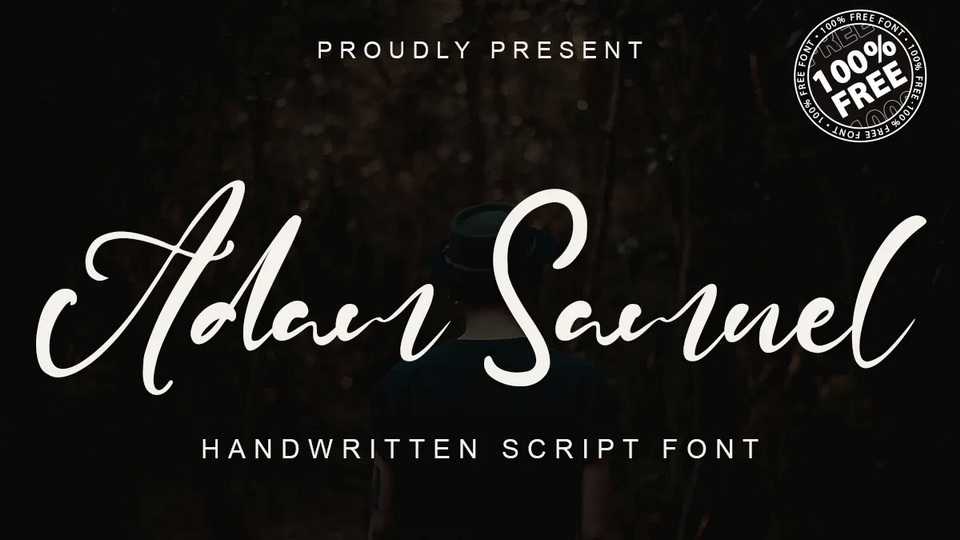
Download Adam Samuel font, a simple and natural typeface that has great handwriting, nice curves, and medium weight. Perfect for any product or merchandise, ads and social media.
Designer: Kong Font Studio